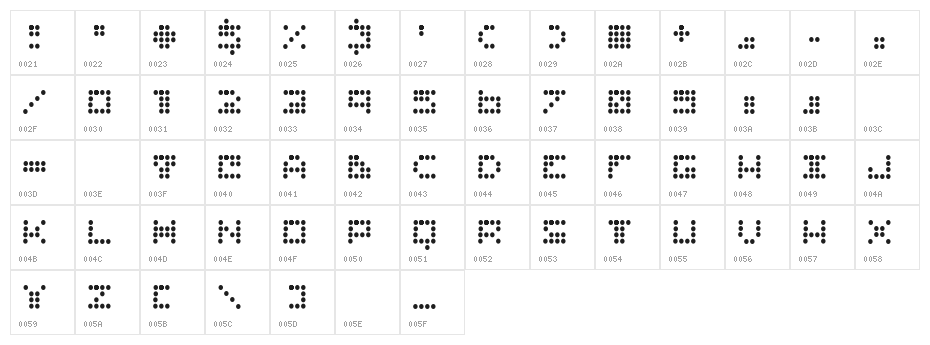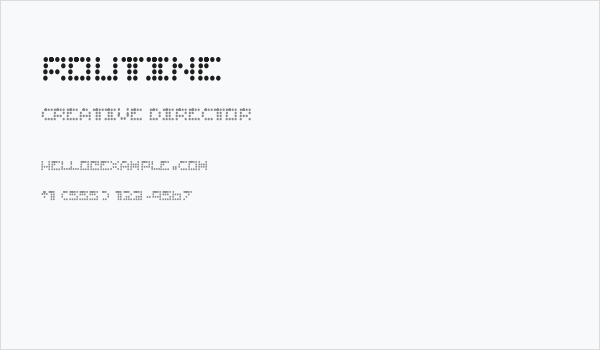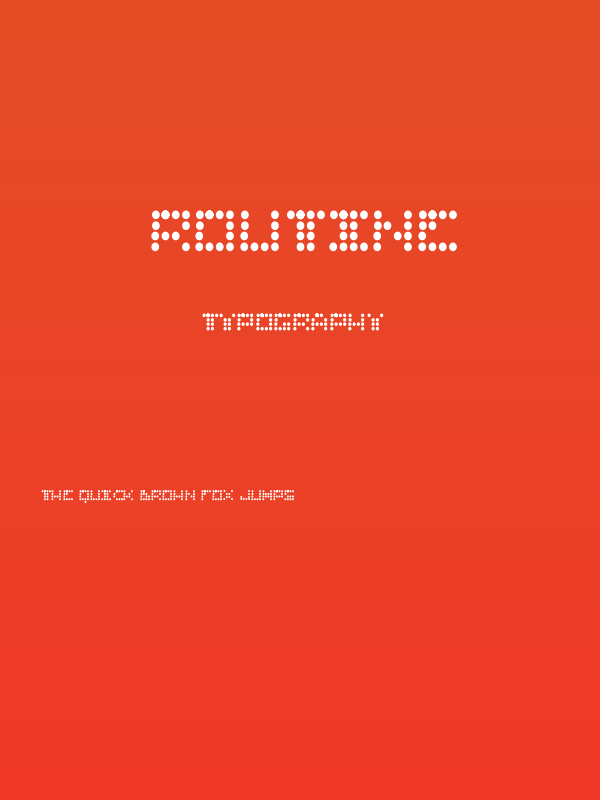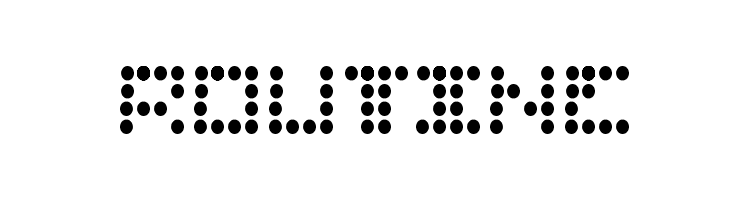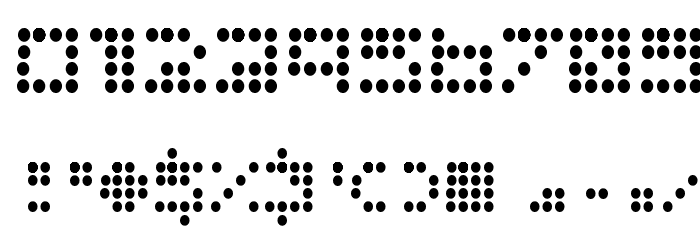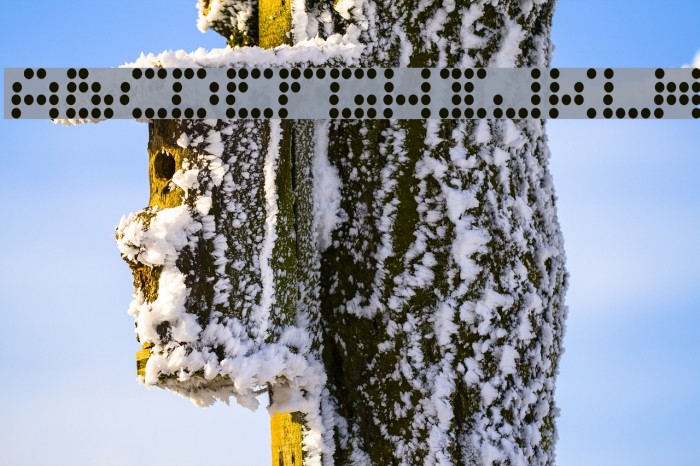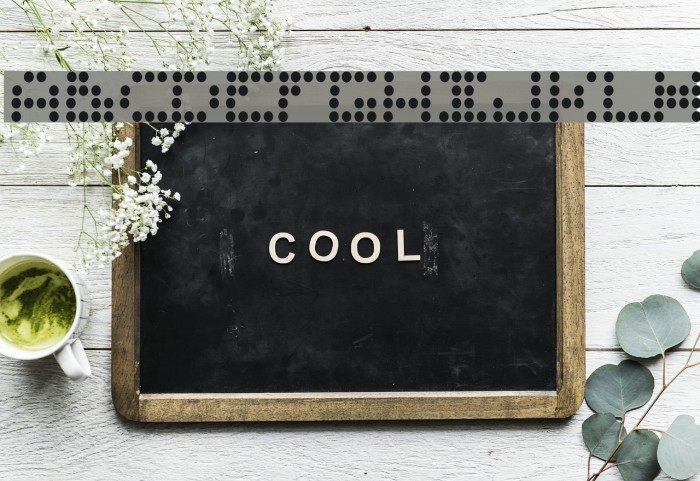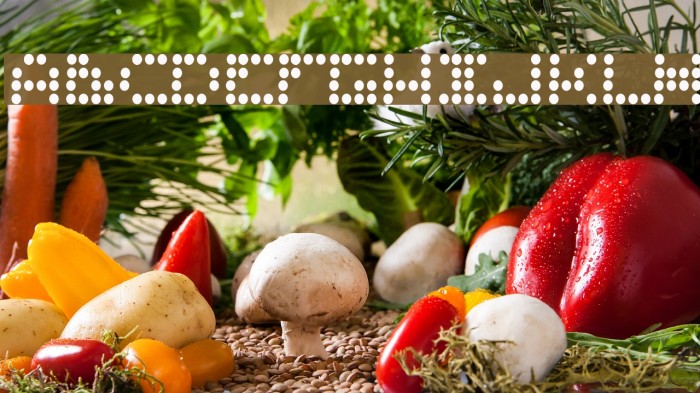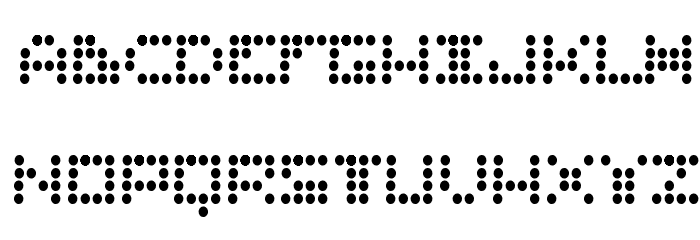
Routine Font
Routine Description
This font features a unique dot matrix style, where each character is constructed from a series of evenly spaced dots. The design is reminiscent of digital displays or retro computer screens, offering a distinct and modern aesthetic. The uniformity of the dots creates a cohesive look, while the spacing between them ensures legibility. This font is ideal for projects that require a futuristic or technological feel, as well as for creative designs that aim to stand out. The characters maintain a consistent weight and width, contributing to a balanced and harmonious appearance.
| Use Case | Headlines, Logos, Digital displays |
| Proposed Projects | Ideal for digital displays, tech-themed designs, creative posters, and modern branding. |